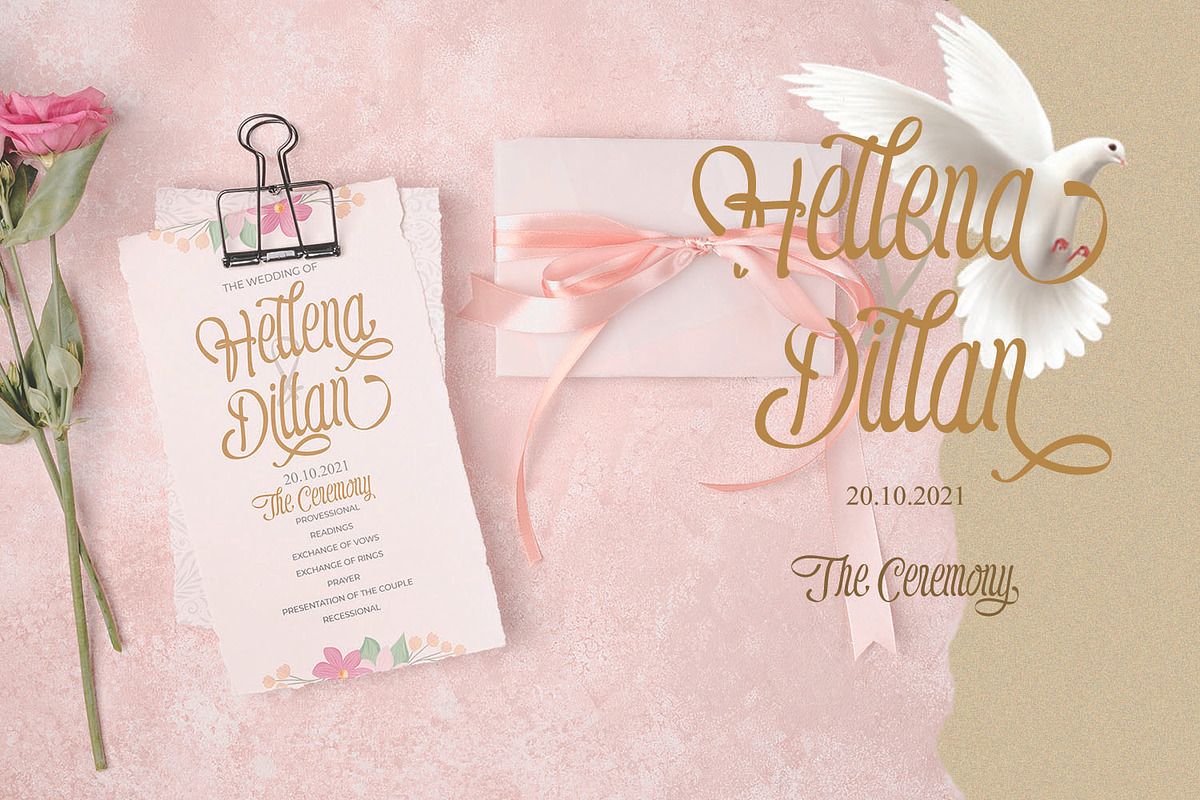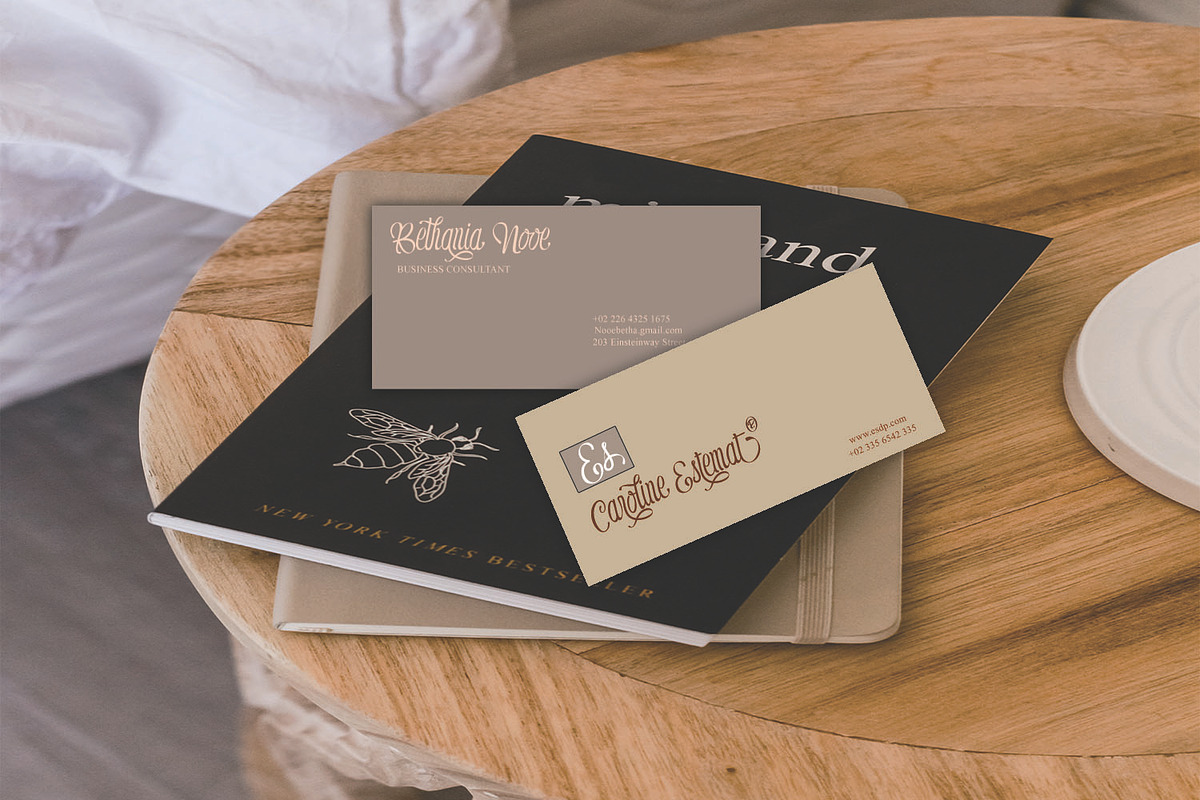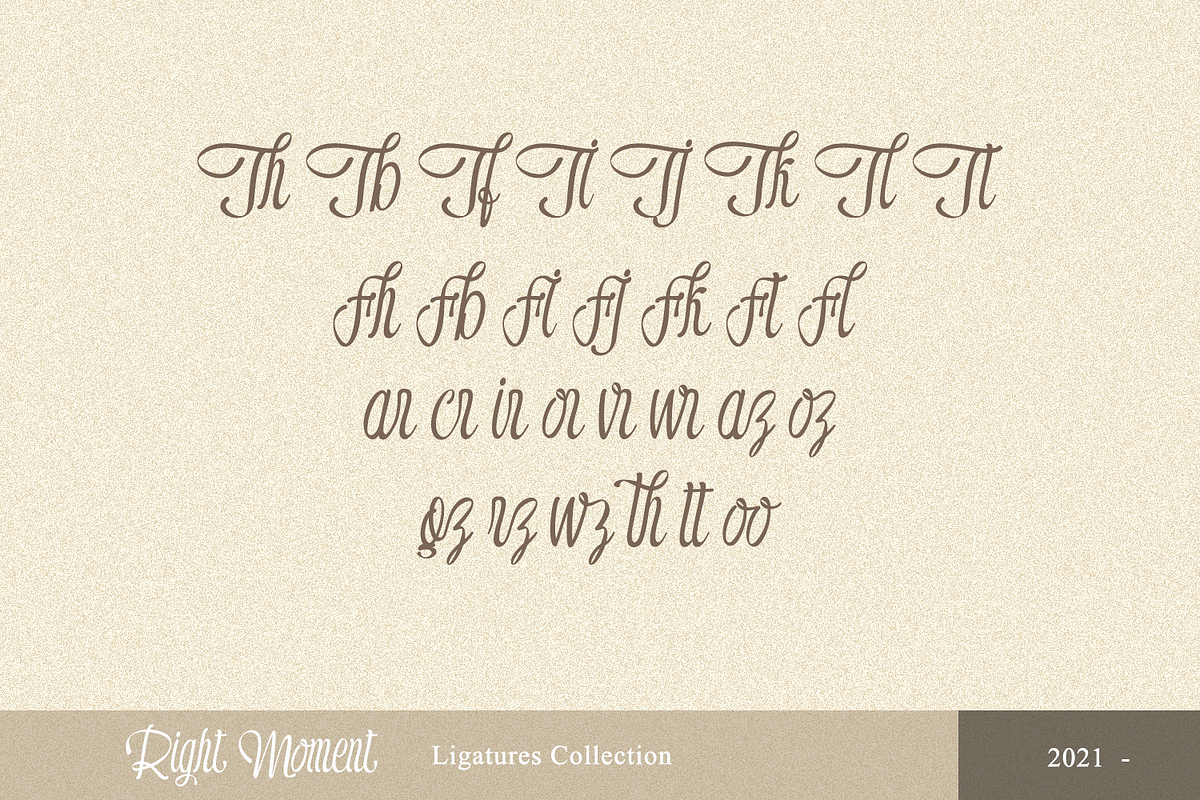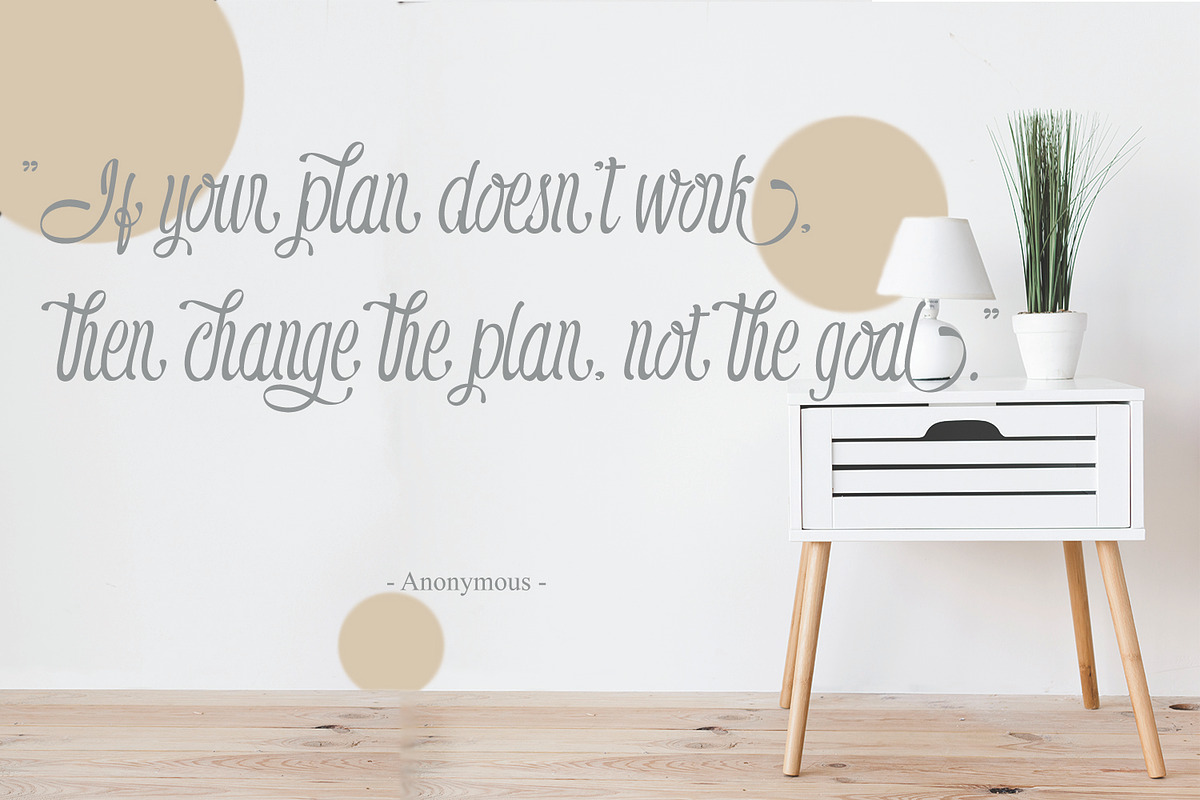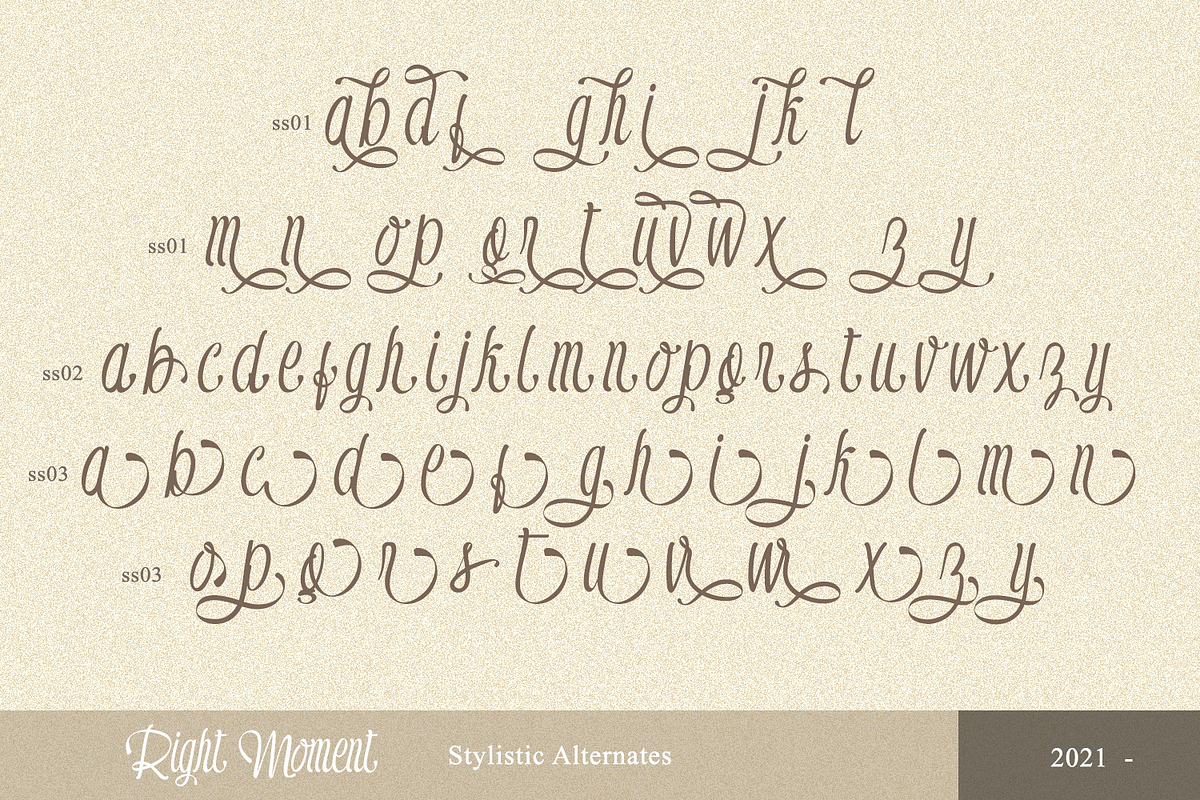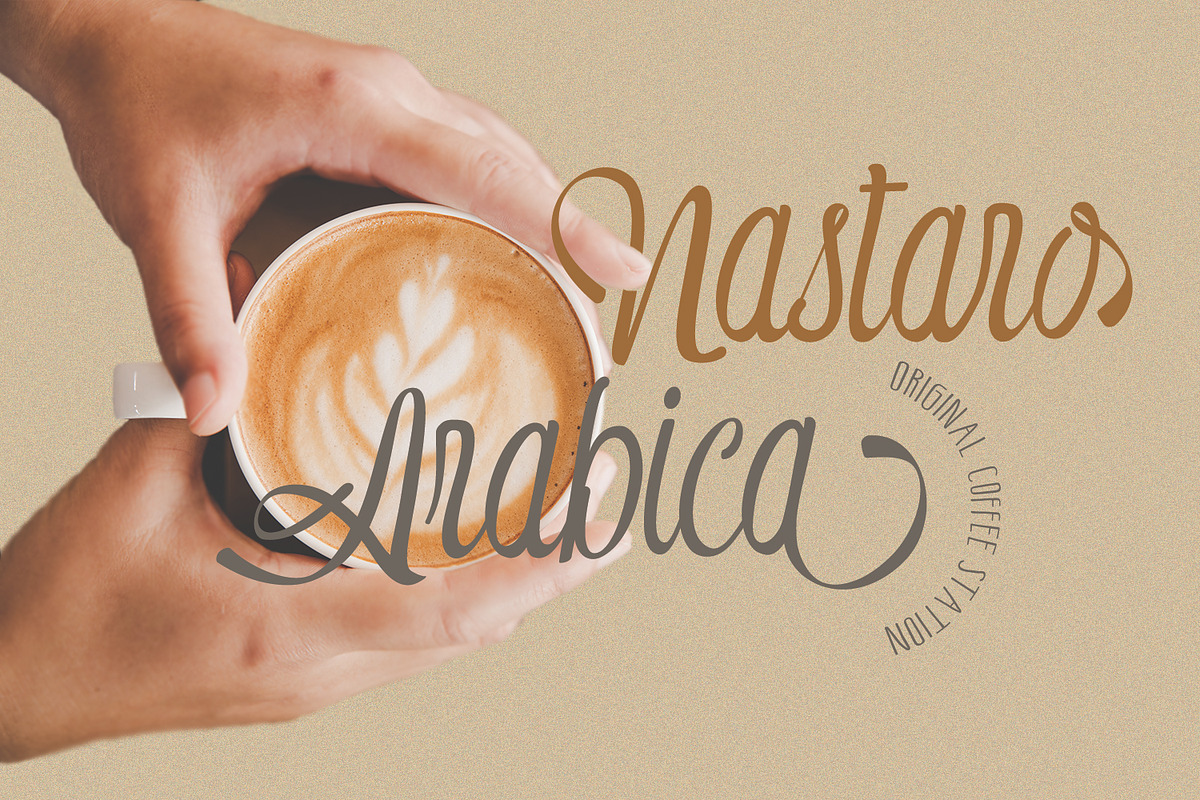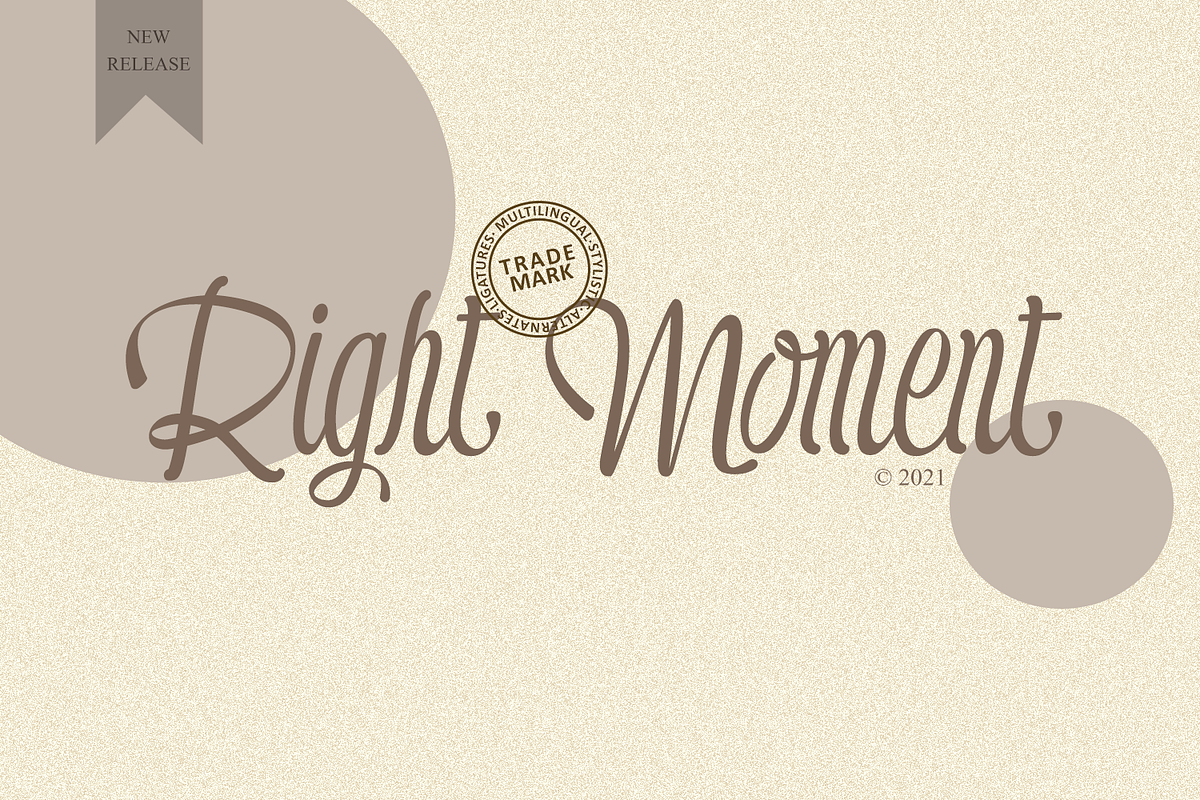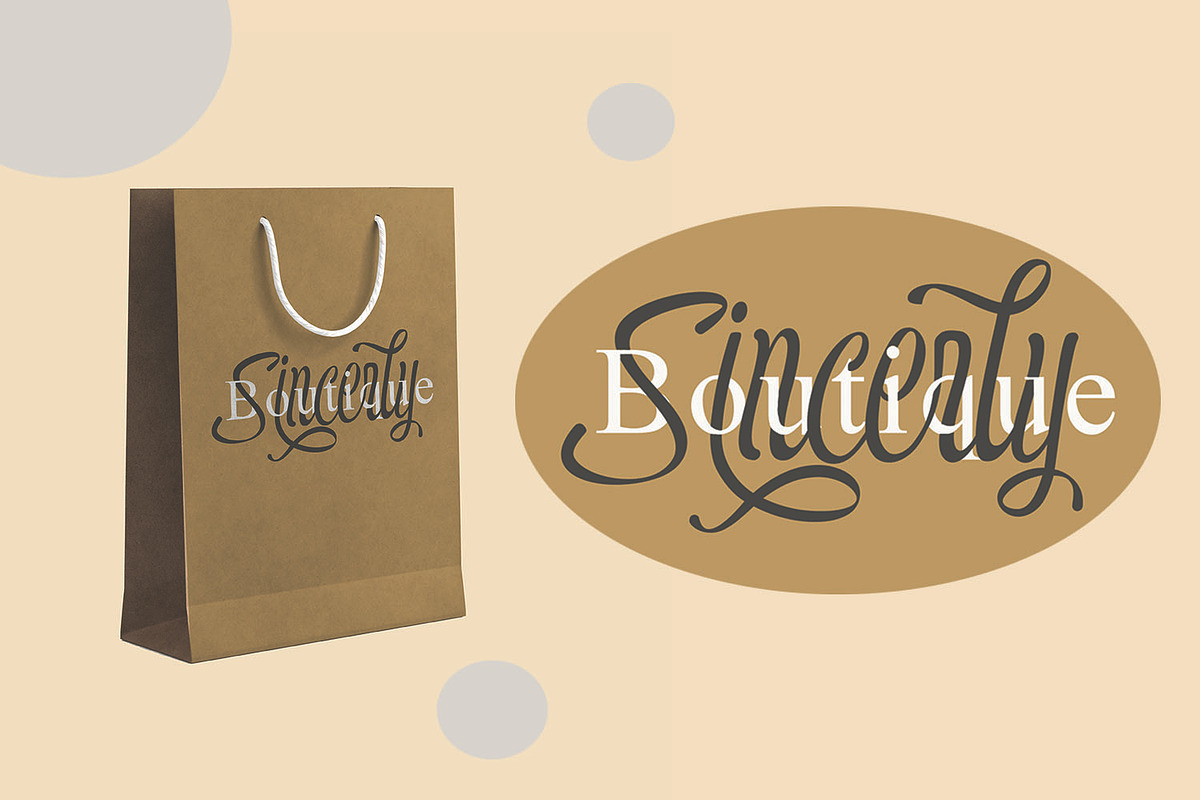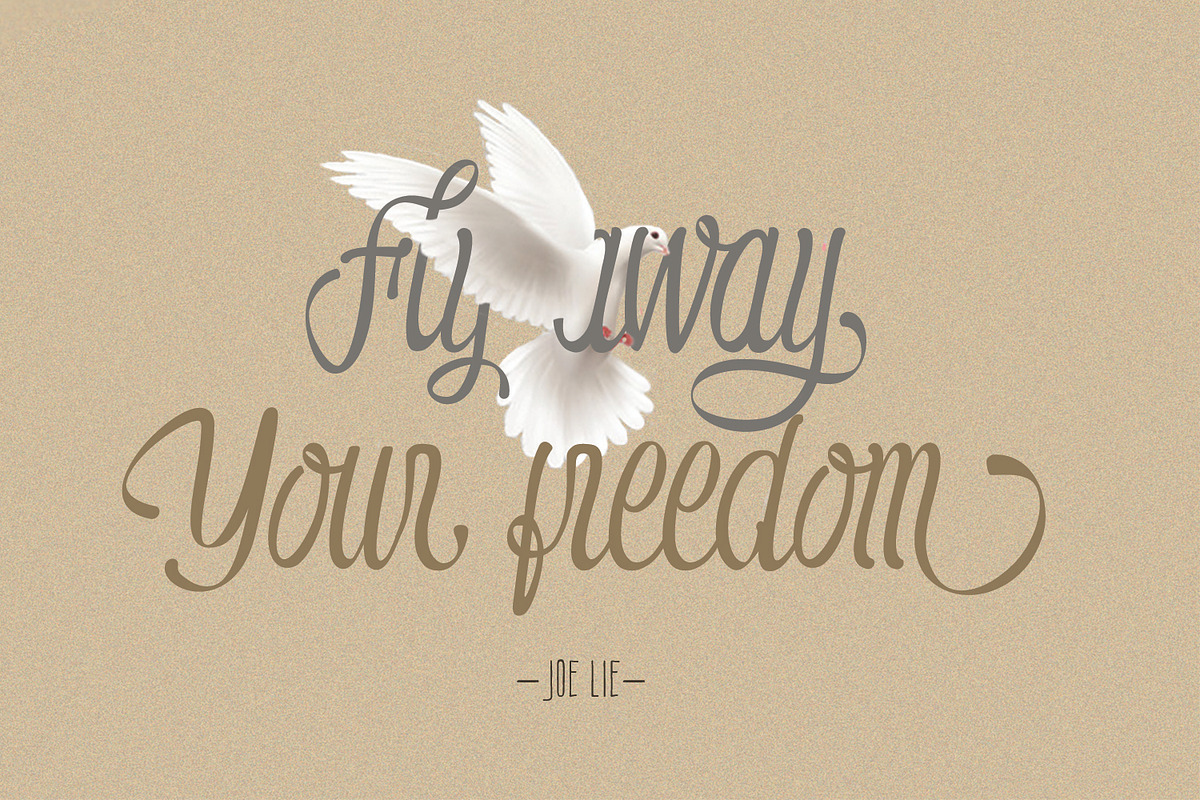
Right Moment // Romantic Typeface
Come on, give a lot of people a sense of admiration for something you made by giving a sweet touch to your work! One of the best ideas to make this happen is to provide memorable sentences that of course also use a charming font style. The presentation of this font is specifically to answer all of the above,.
Right Moment - Romantic Typeface
This is a romantic and sweet calligraphy typeface with characters that dance along the baseline. This font is perfect for you to use in various design plans that show a special impression such as business cards, invitation cards, wedding invitations, women's clothing brands, beauty product brands, love quotes and It will add a luxury spark to any design project that you wish to create!
Our font always includes Multilingual Support to make your branding reach a global audience.